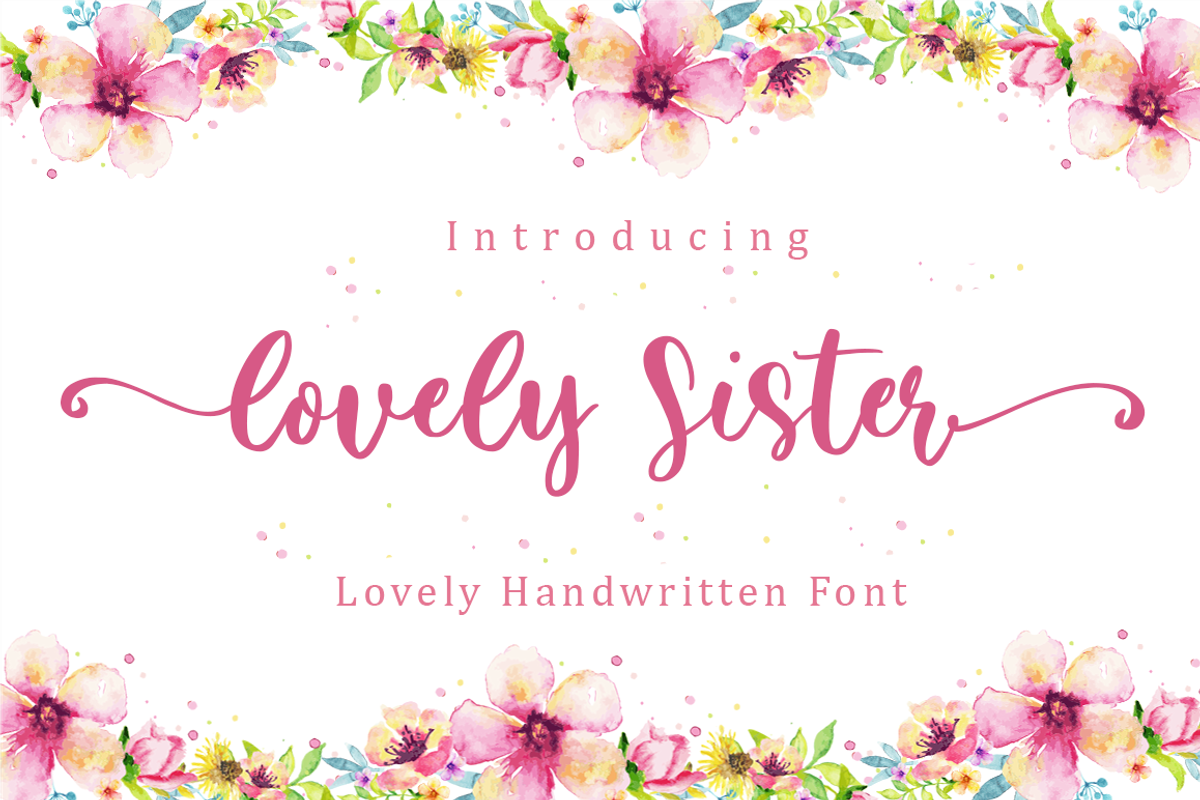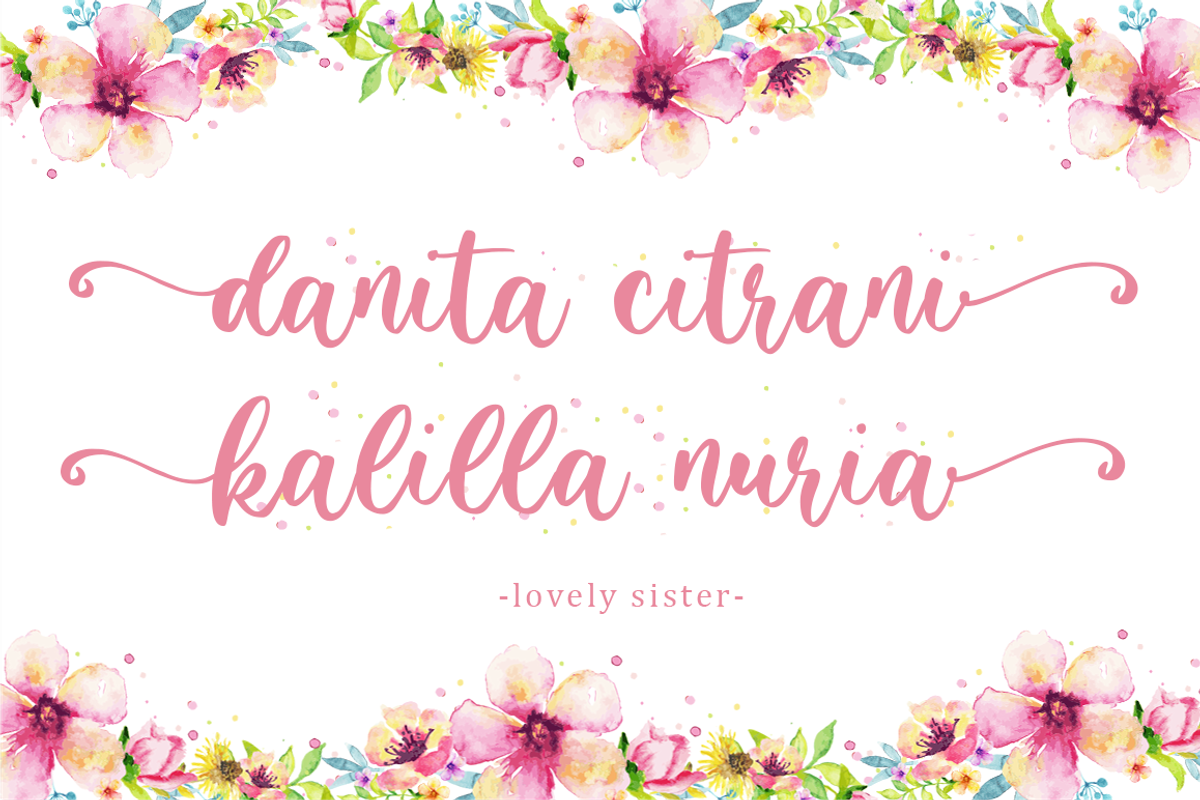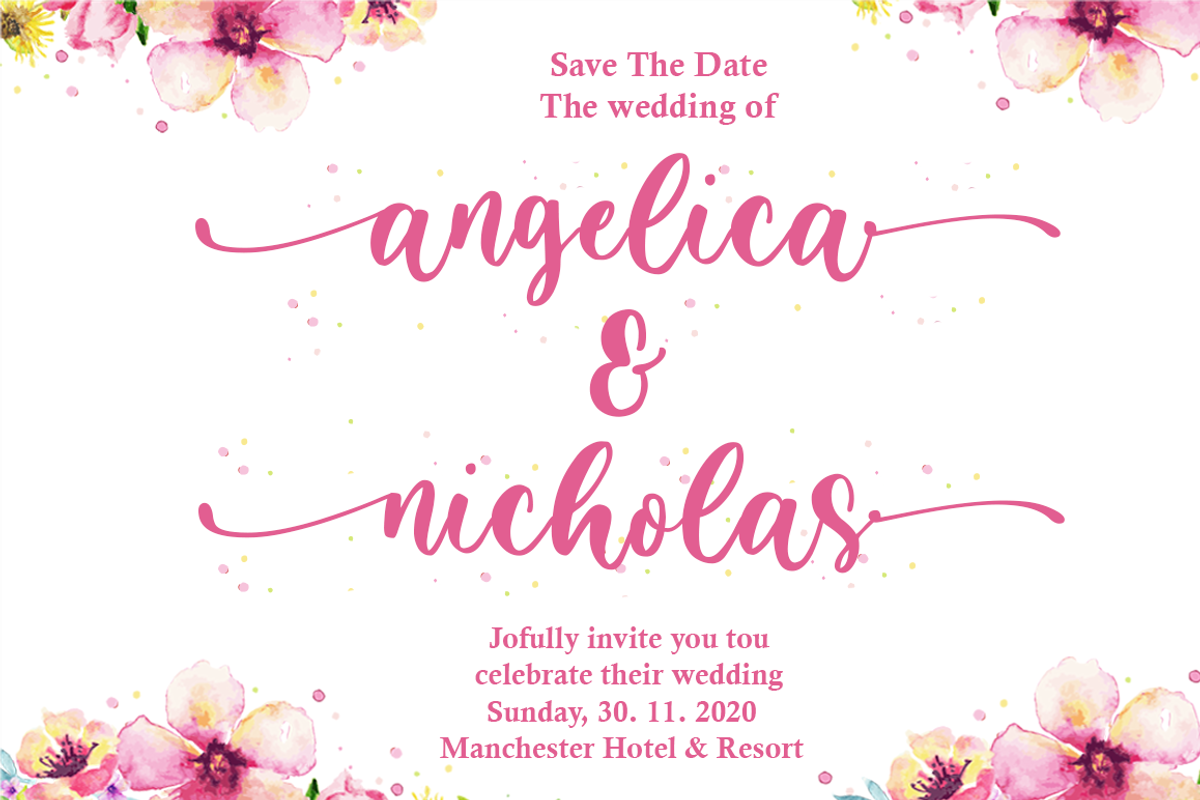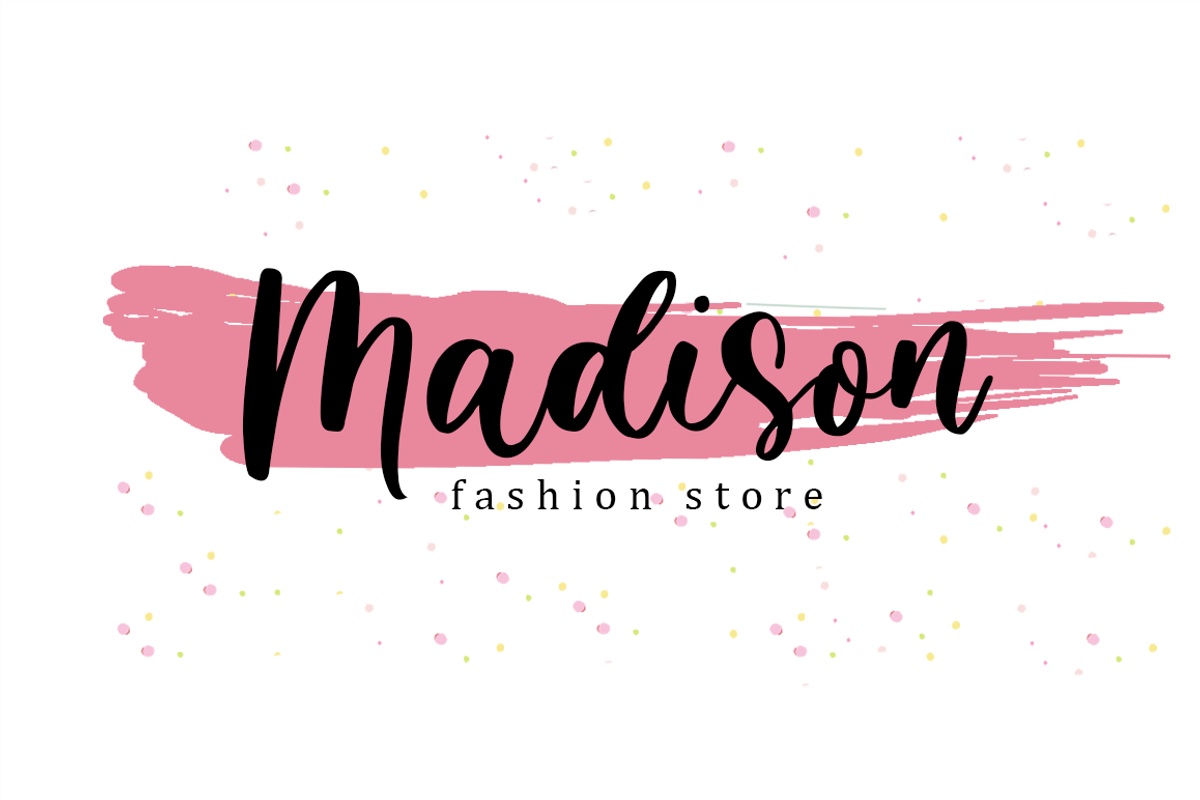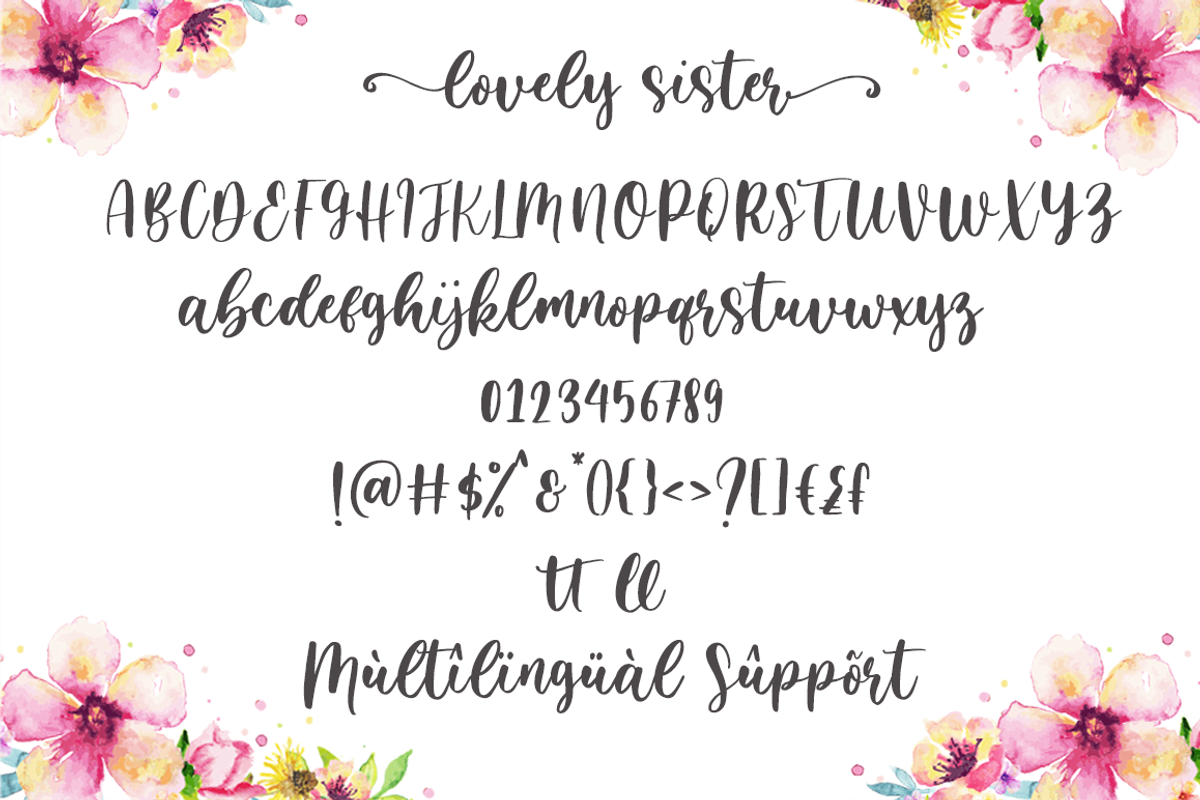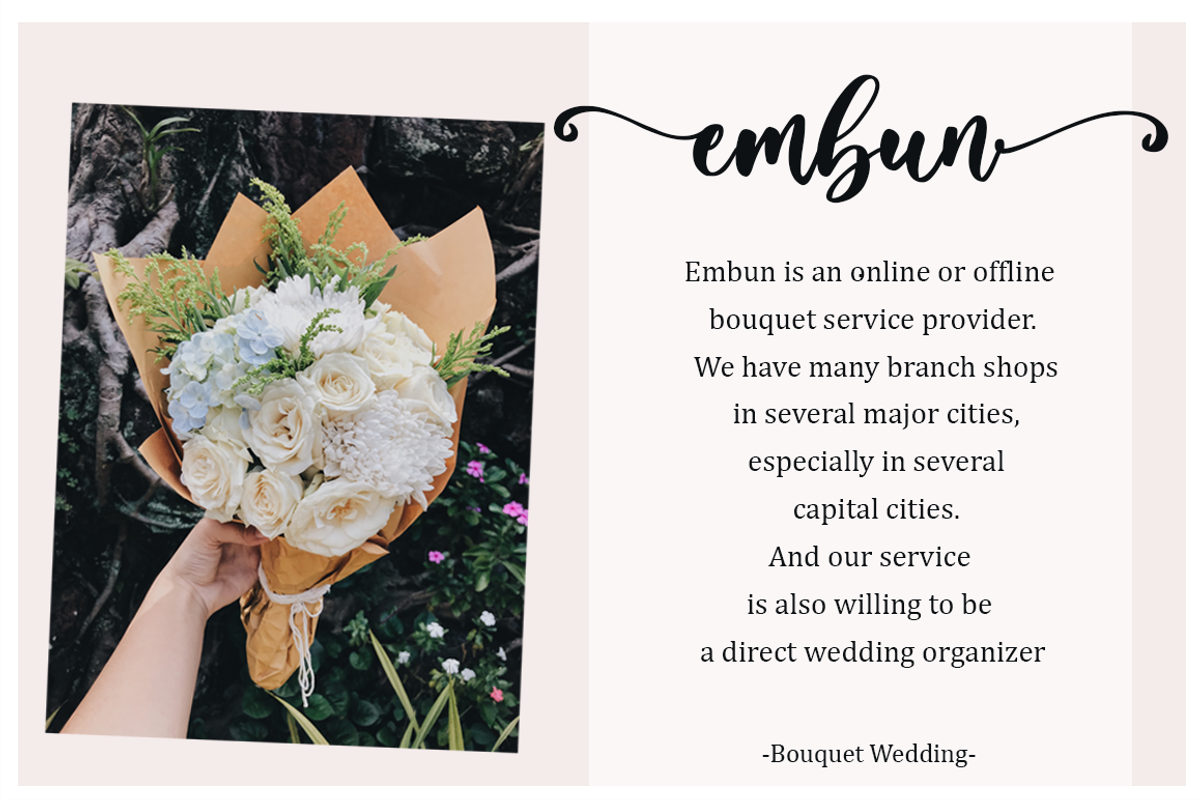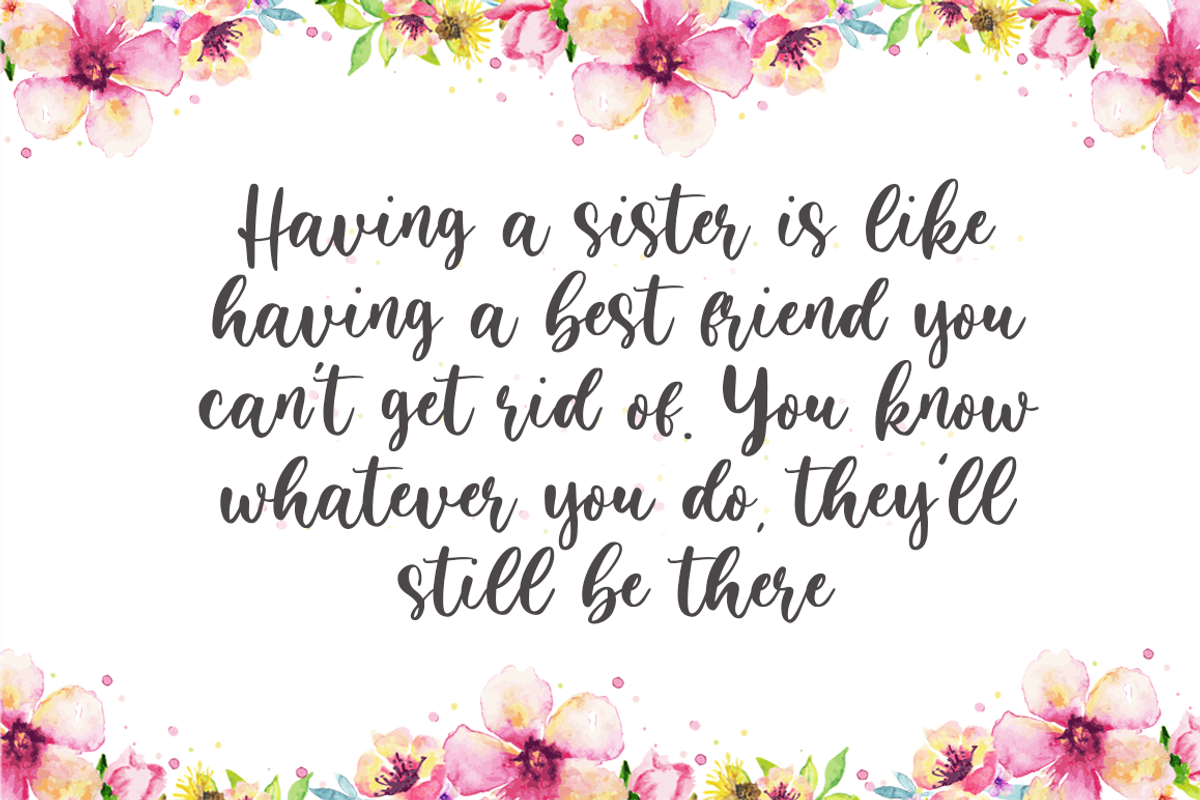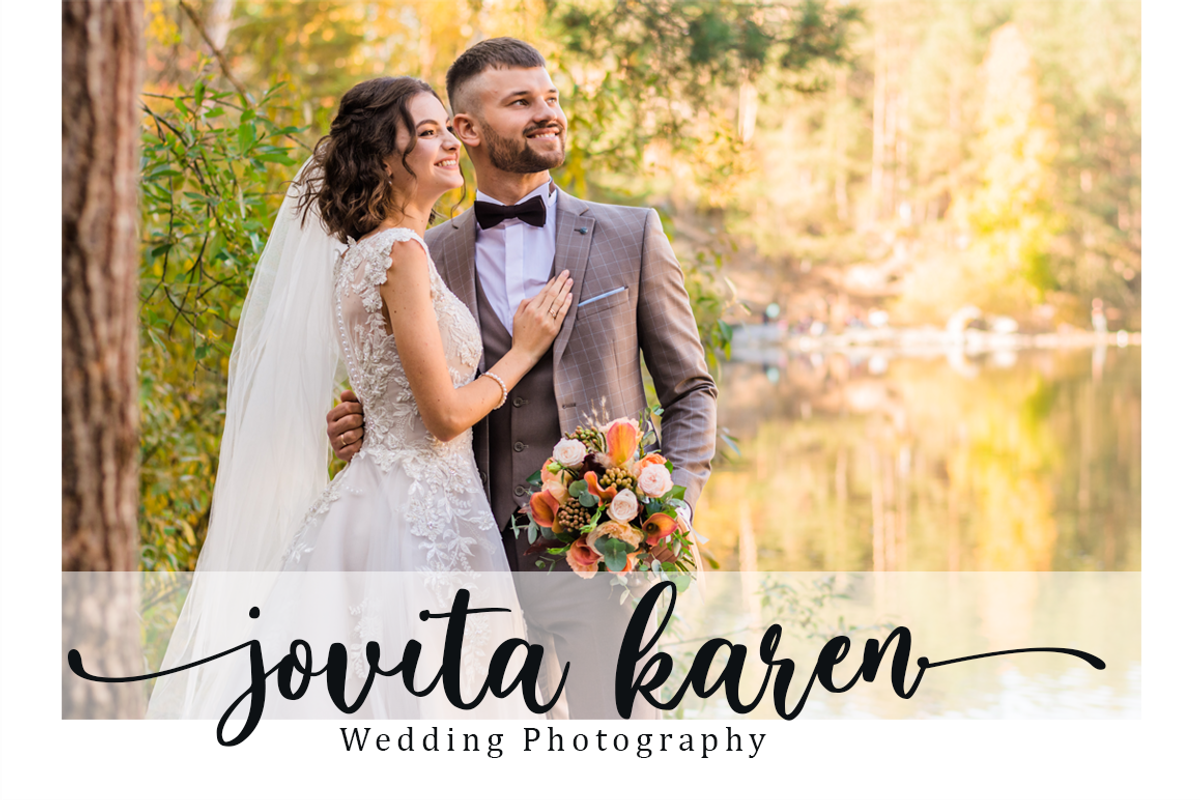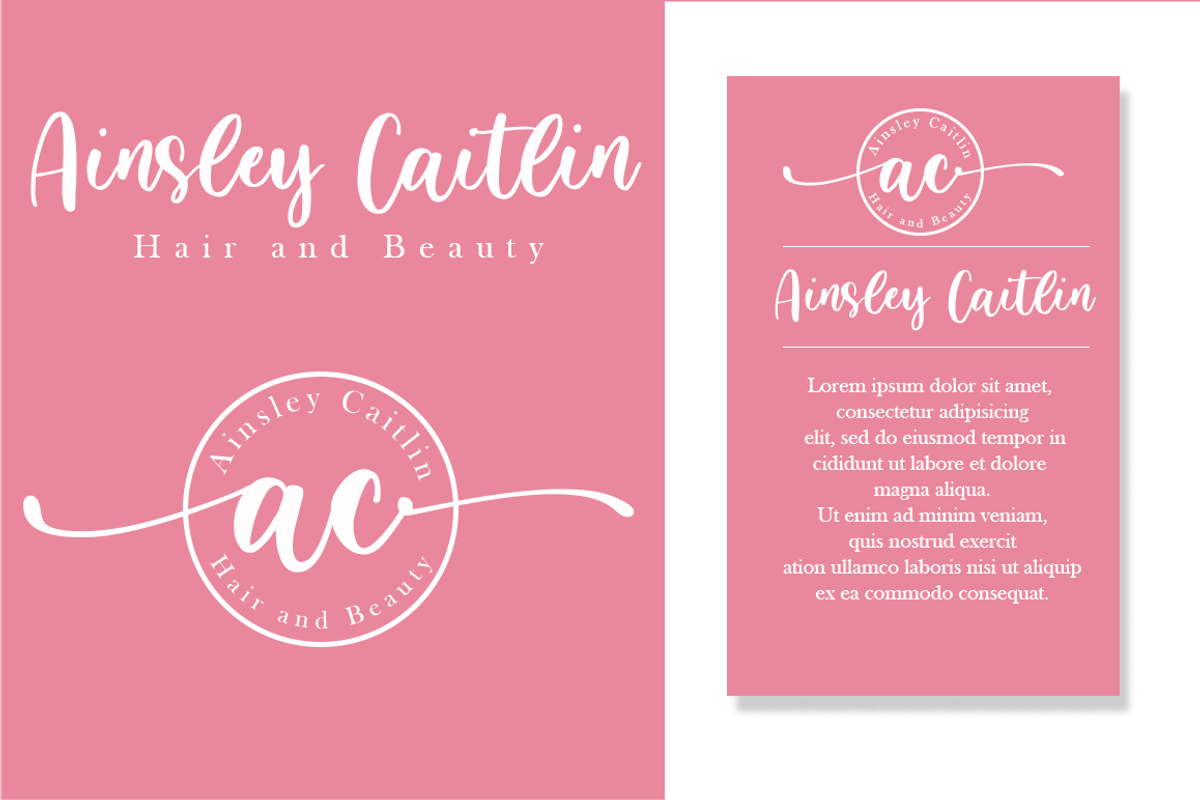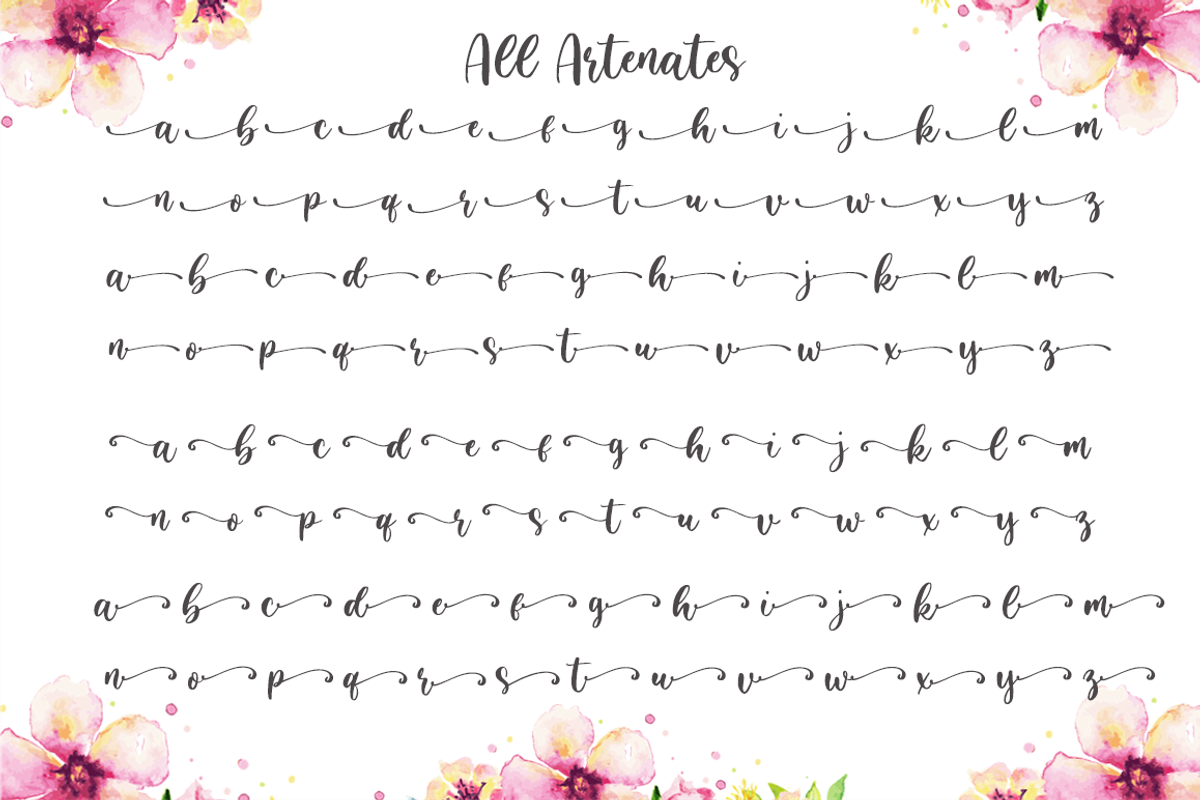
Lovely Sister - Lovely Handwritten
Lovely Sister is a beautiful calligraphy font perfect for crafting, branding, invitation, stationery, wedding designs, social media posts, advertisements, product packaging, product designs, label, photography, watermark, special events or anything.
Lovely Sister comes with full set of uppercase and lowercase letters, swash alternates, ligatures,multilingual symbols, numerals and punctuation.